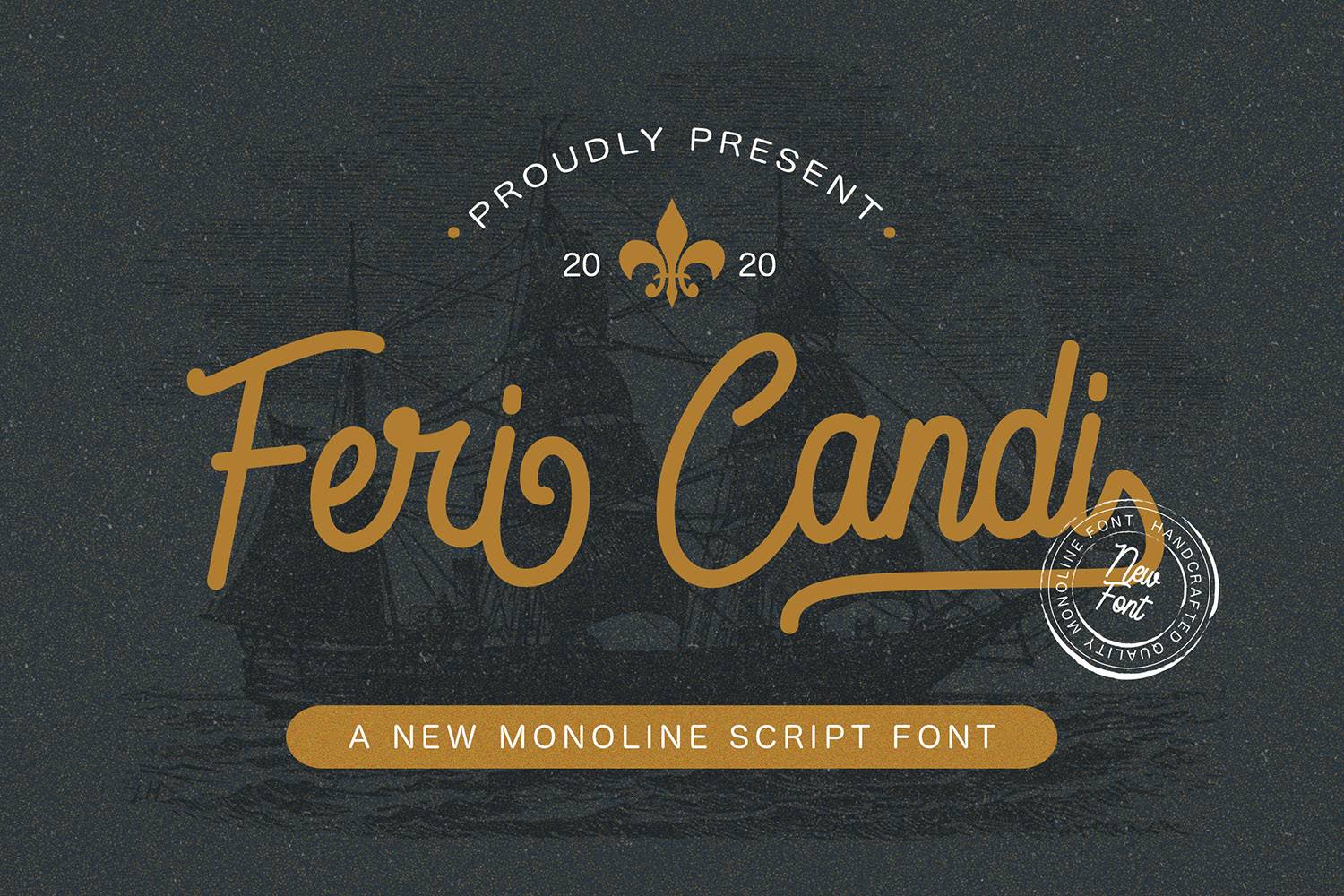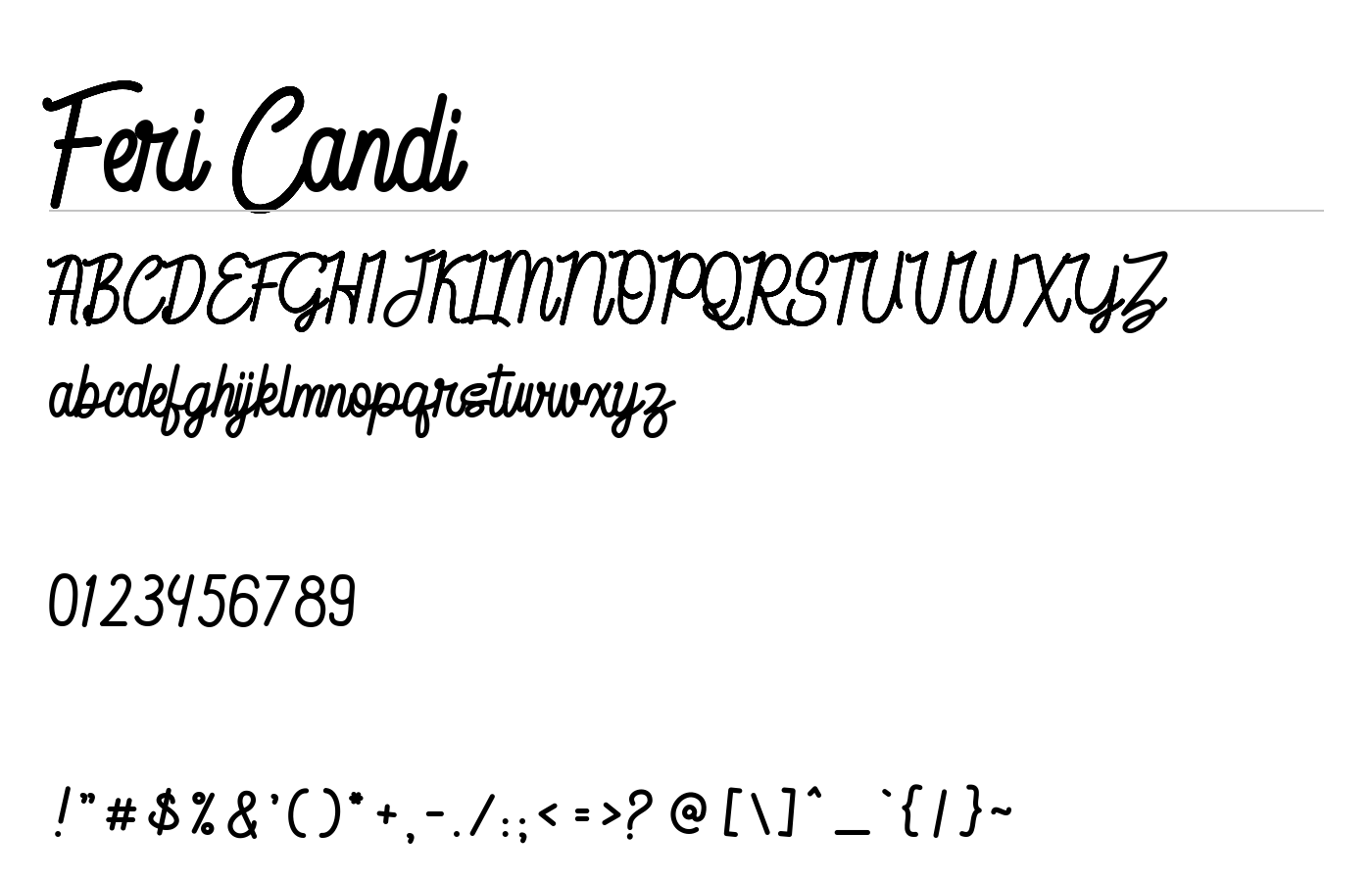
Feri Candi is a playful and casual script font with a handwritten feel, featuring a smooth, slightly condensed style and consistent medium weight. Its flowing letterforms exhibit slight slants and rounded strokes, making it friendly and approachable, ideal for creative branding, invitations, and informal headlines. This font works well to convey warmth and personality in designs needing a personal, stylish touch.
Feri Candi Font
About Feri Candi Font